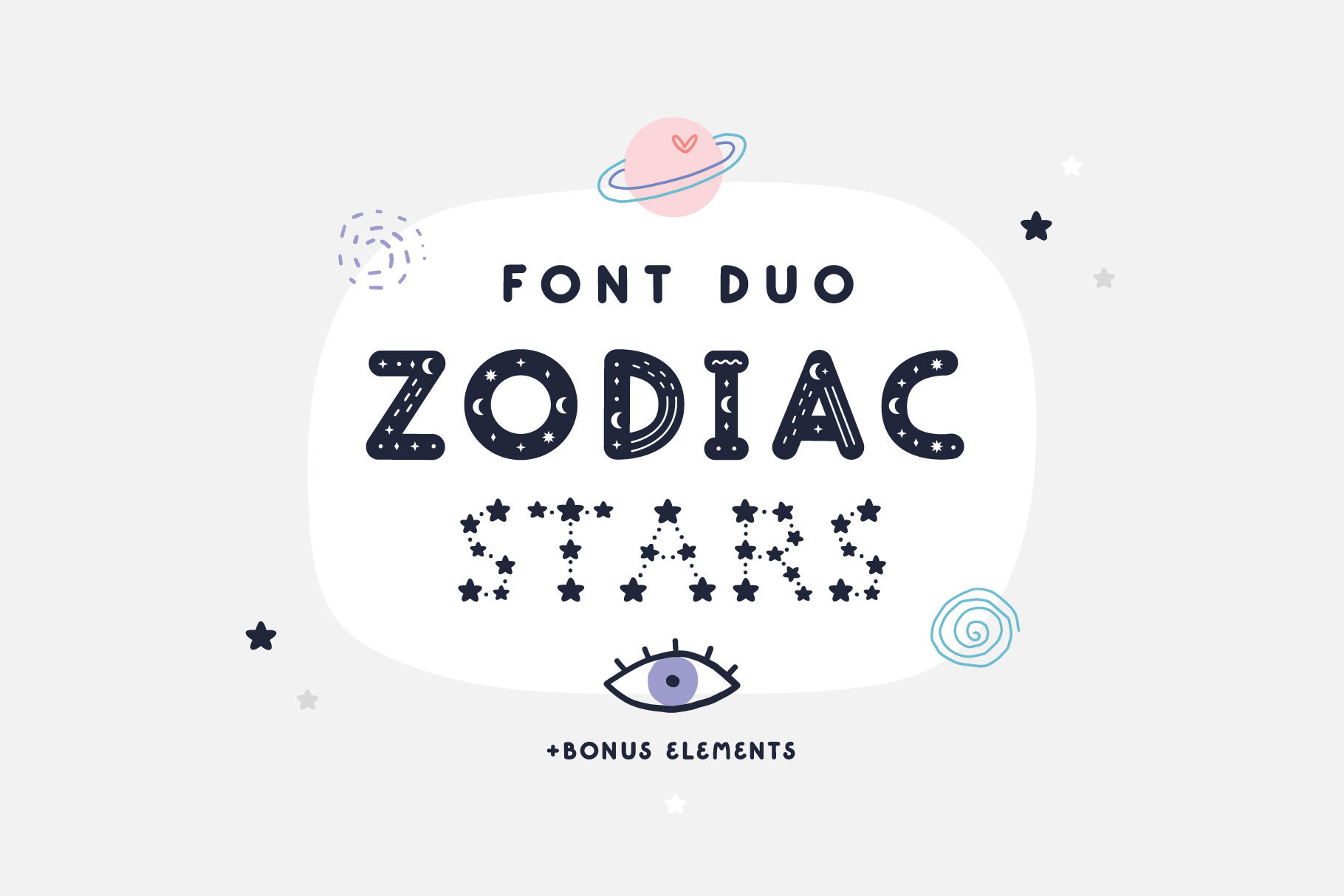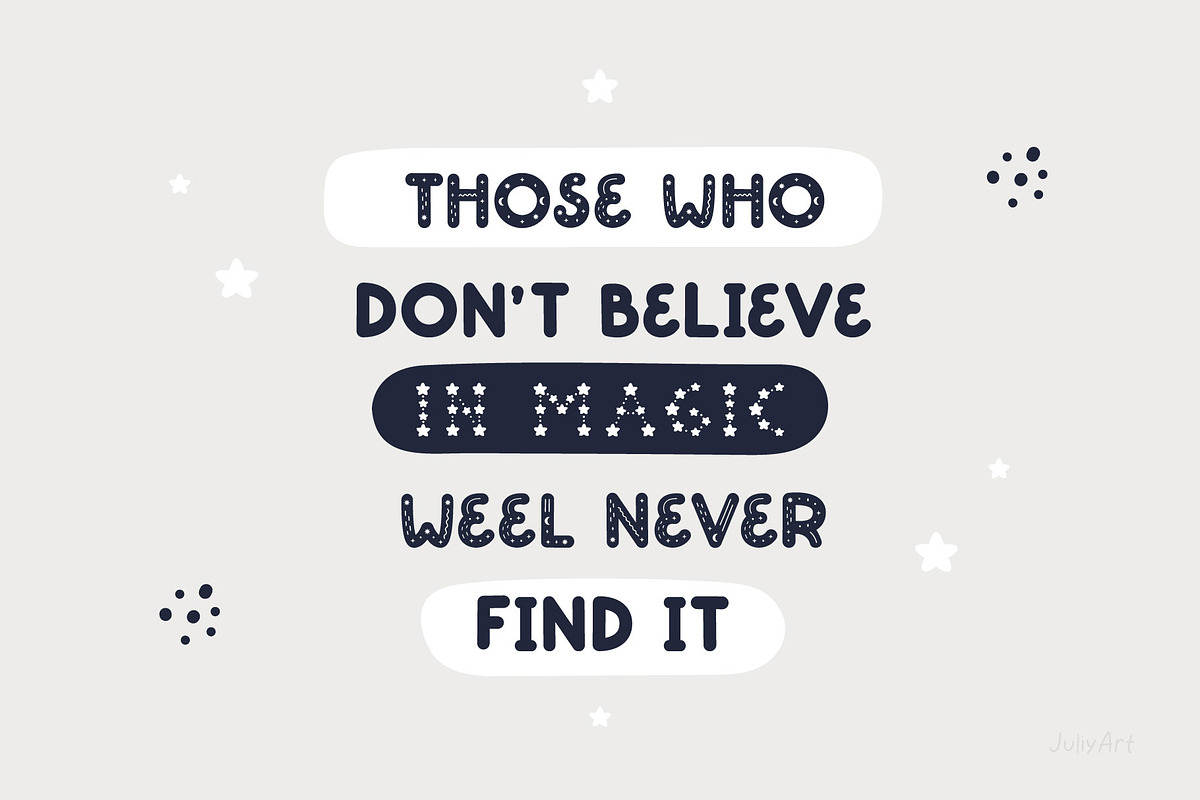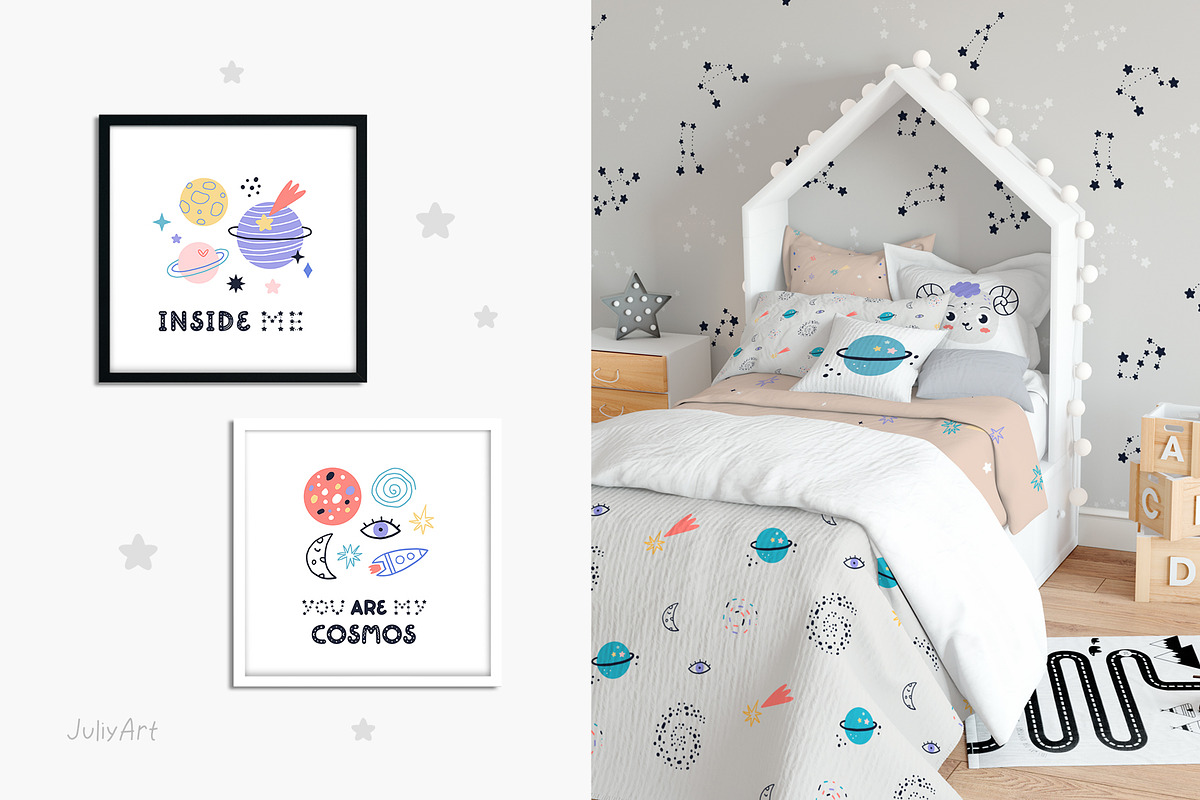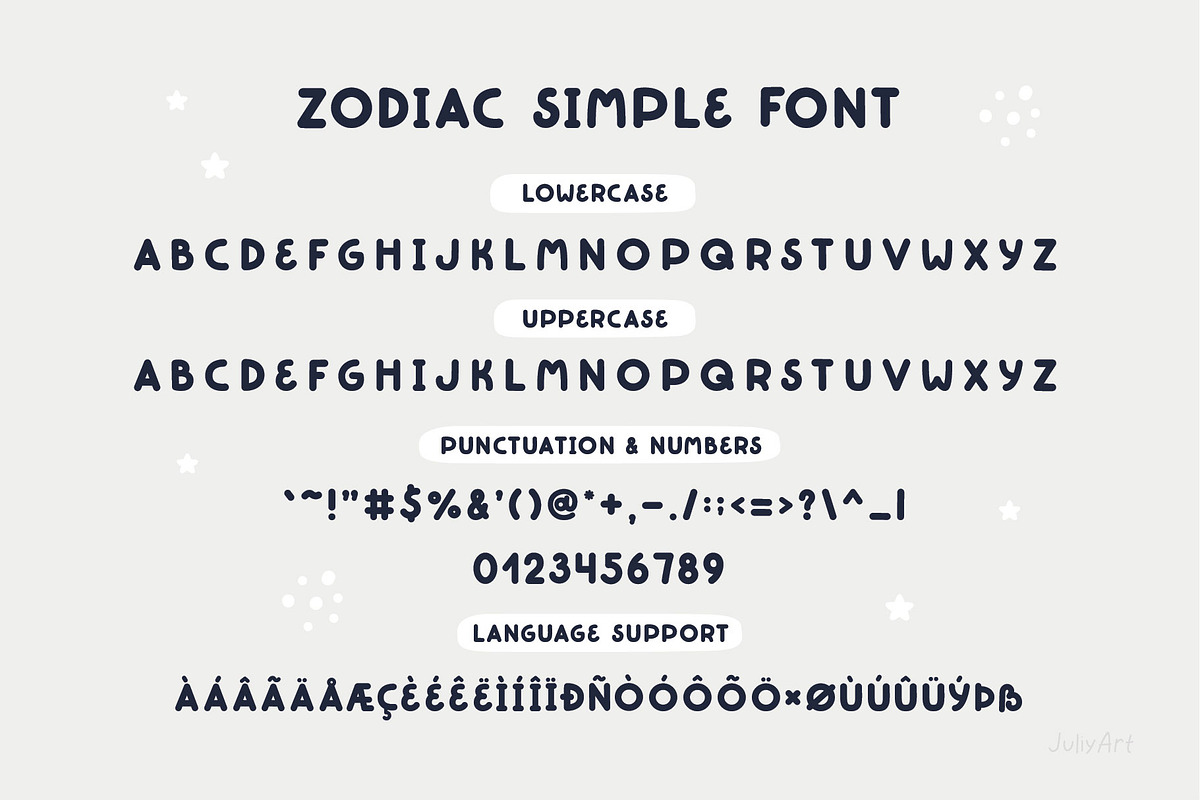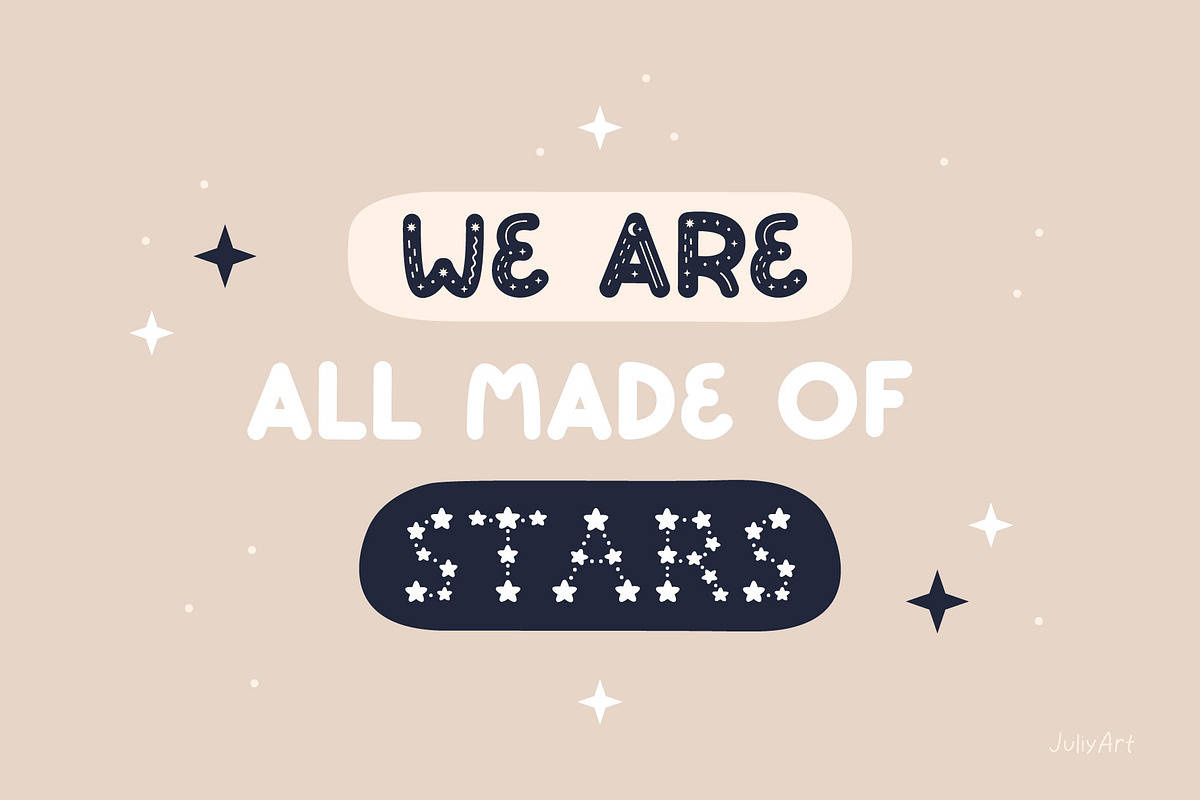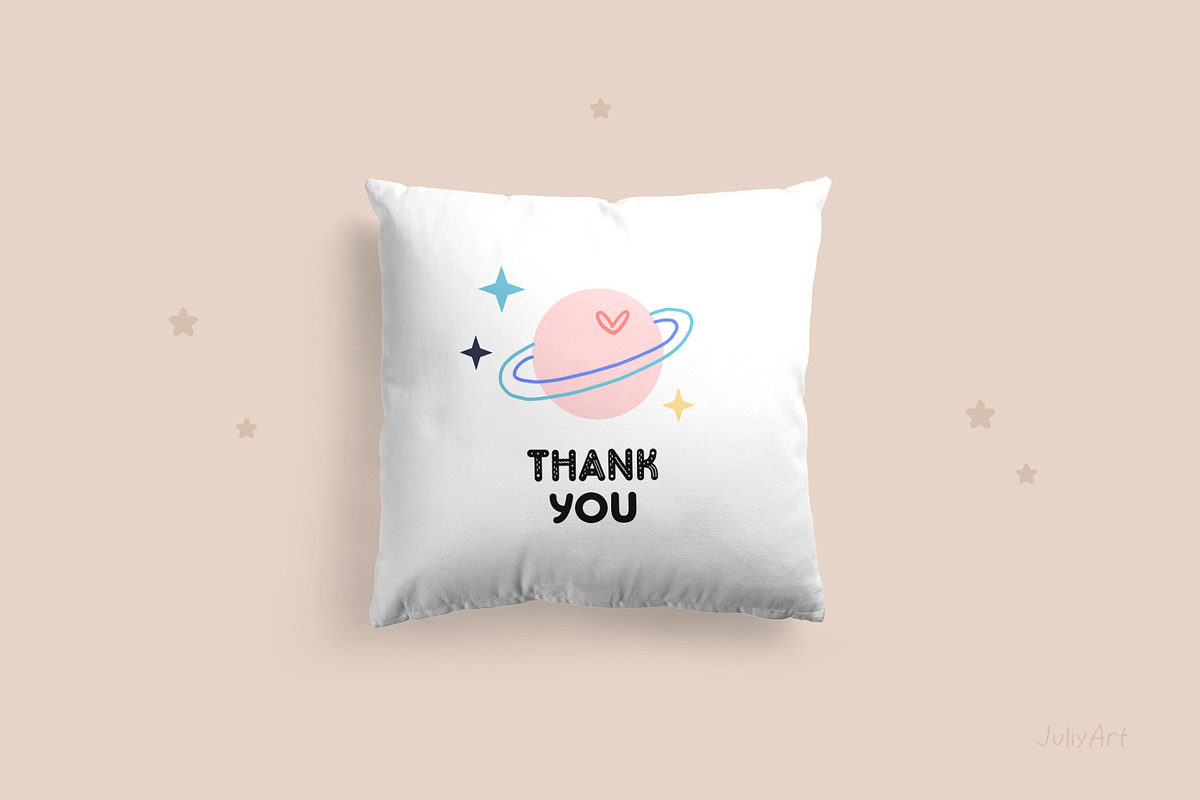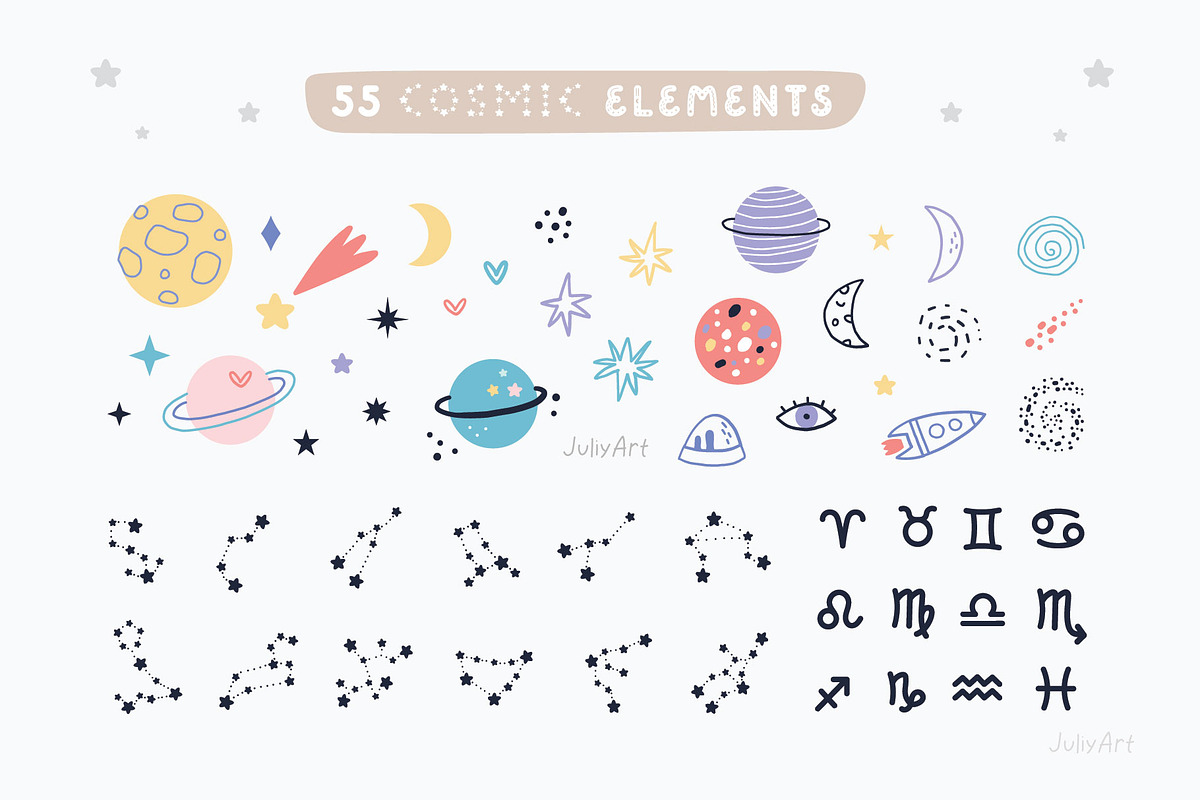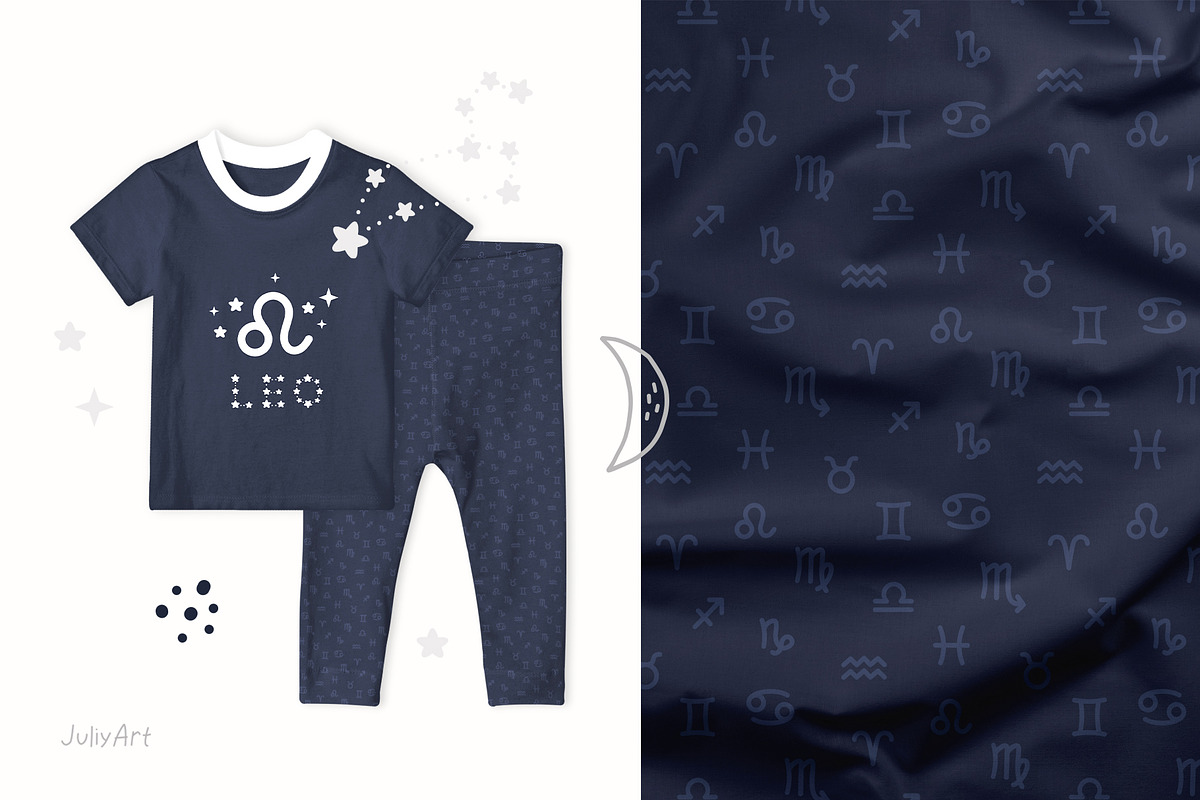
Zodiac Stars Font duo
Zodiac Stars Font duo is ideal for sticker design, metrics, prints, posters, clothing design and cards and much more!
The font also includes cosmic zodiac elements, seamless patterns and zodiac cards. Create a unique magical design with this set!